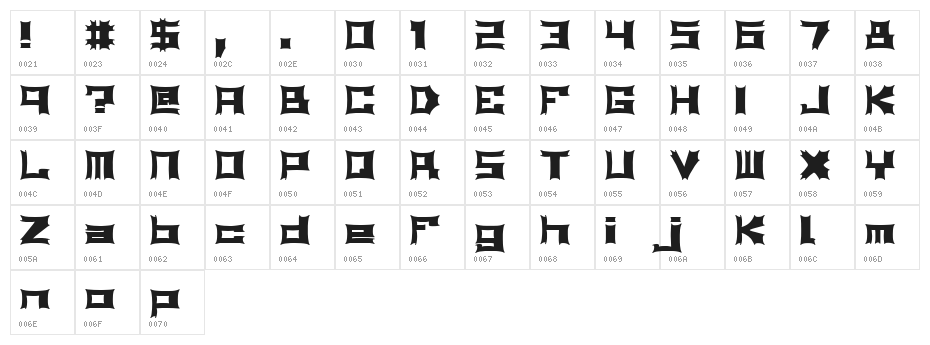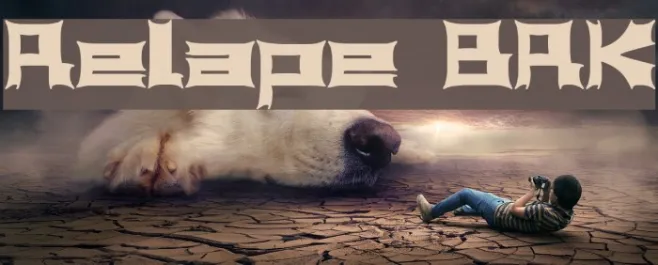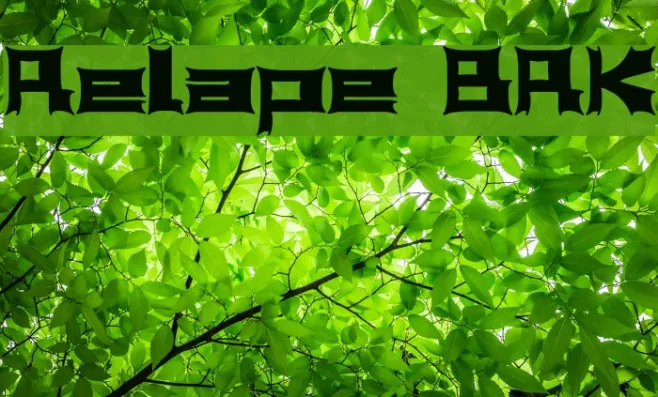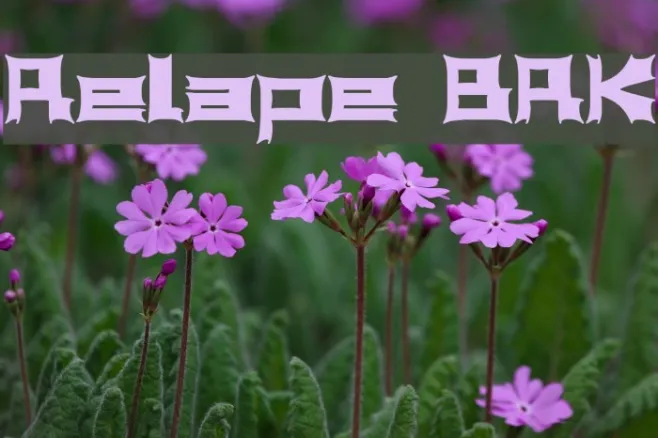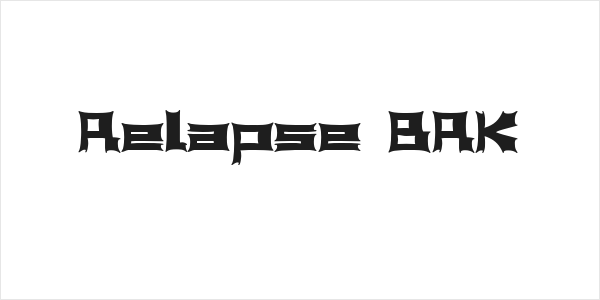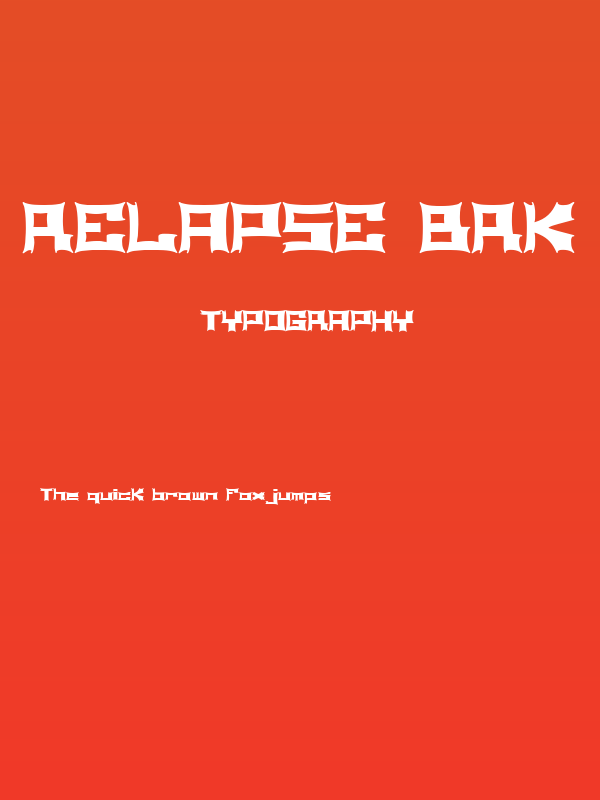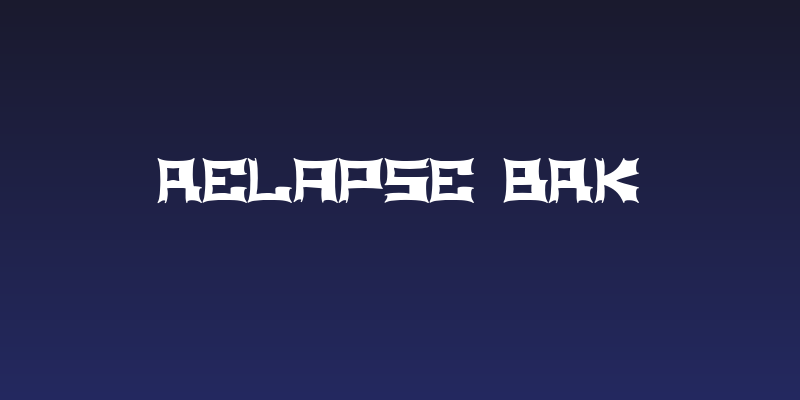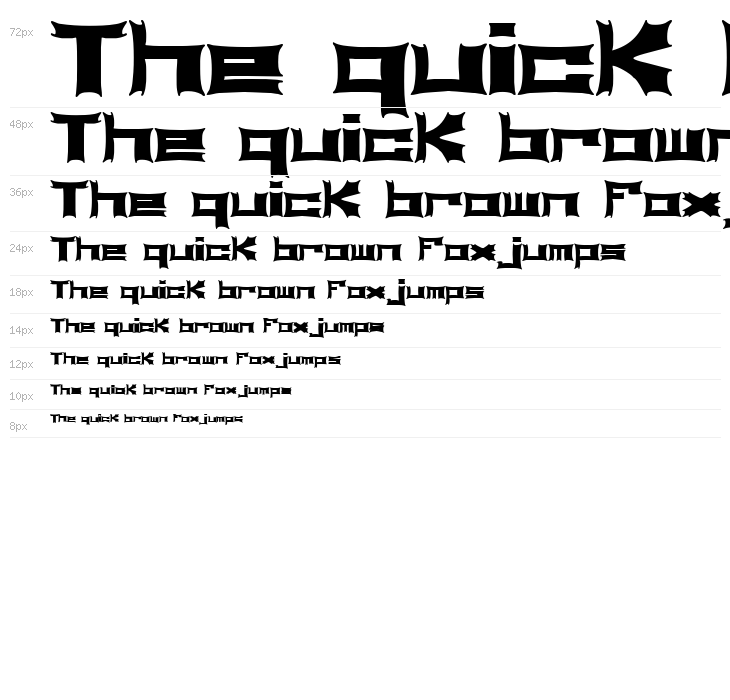
Relapse BRK Font
Relapse BRK Description
This font features a bold and edgy design with sharp, angular lines and a distinct, aggressive style. The uppercase and lowercase letters are characterized by their jagged edges and unique, almost tribal-like appearance. The numbers and special characters maintain this bold, striking aesthetic, making them stand out with their intricate detailing. The overall look is highly decorative, with a strong emphasis on visual impact, suitable for projects that require a dramatic and eye-catching typeface.
| Proposed Projects | Ideal for music album covers, event posters, logos for extreme sports brands, or any project needing a bold, dramatic typeface. |